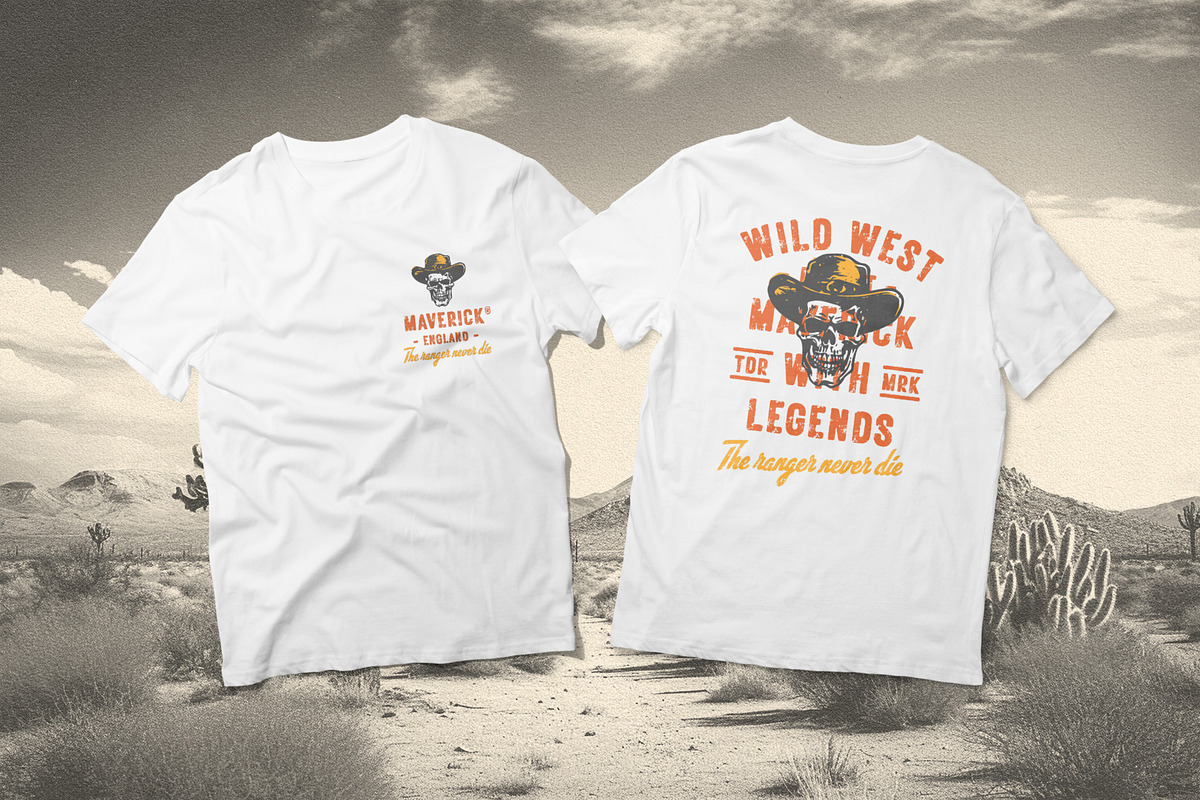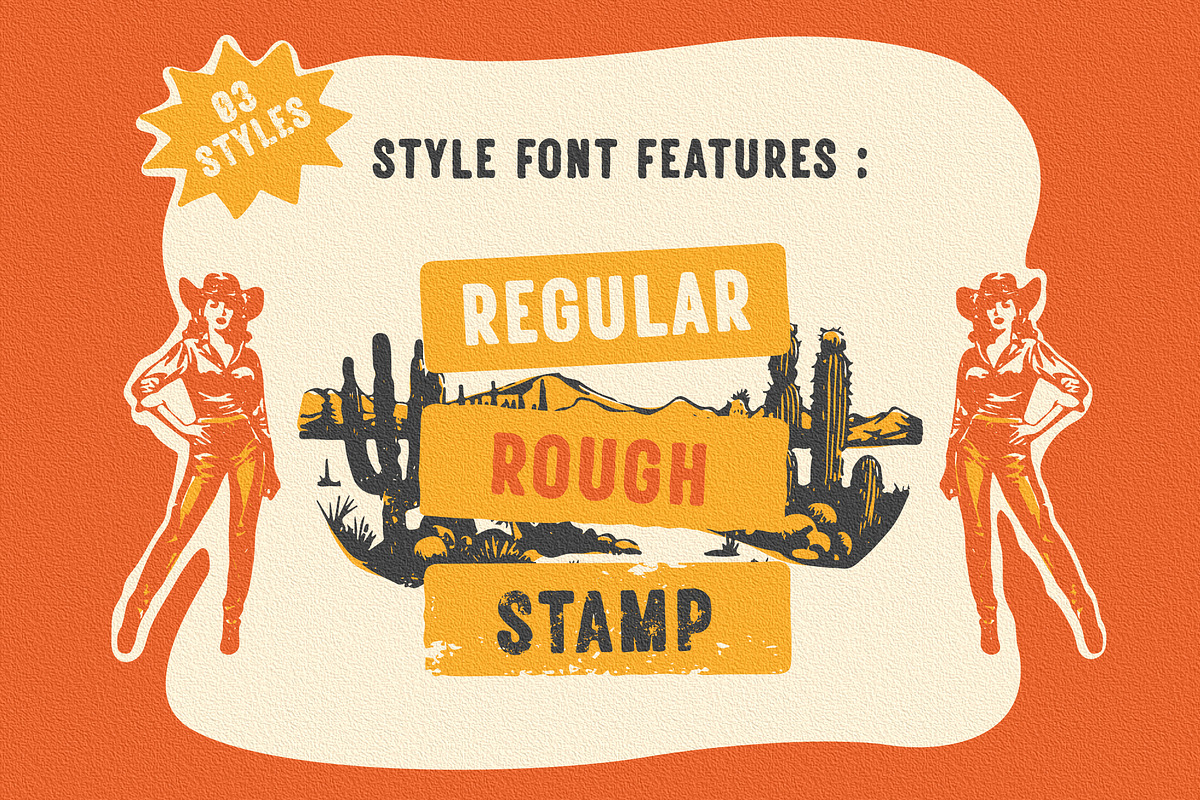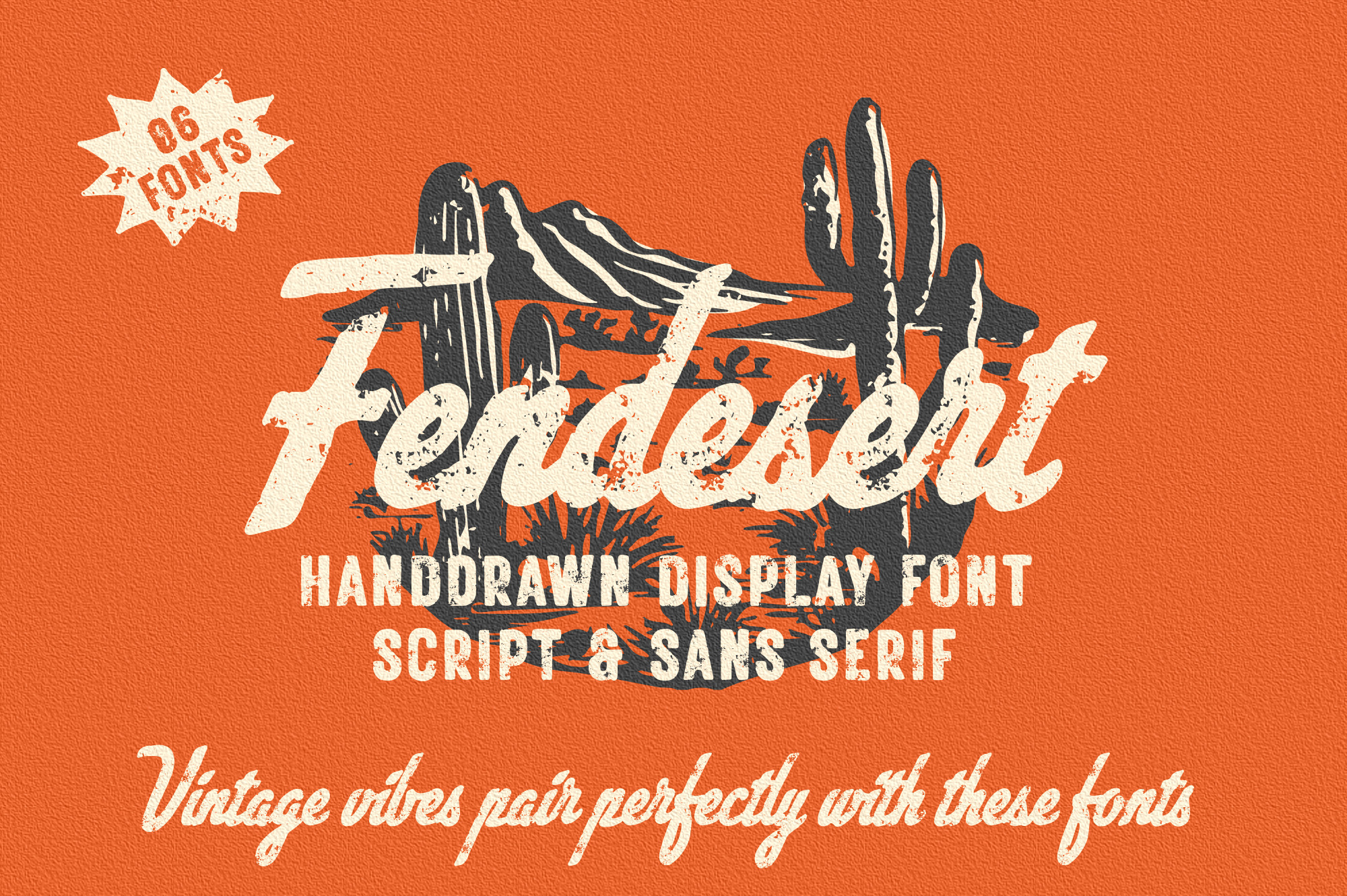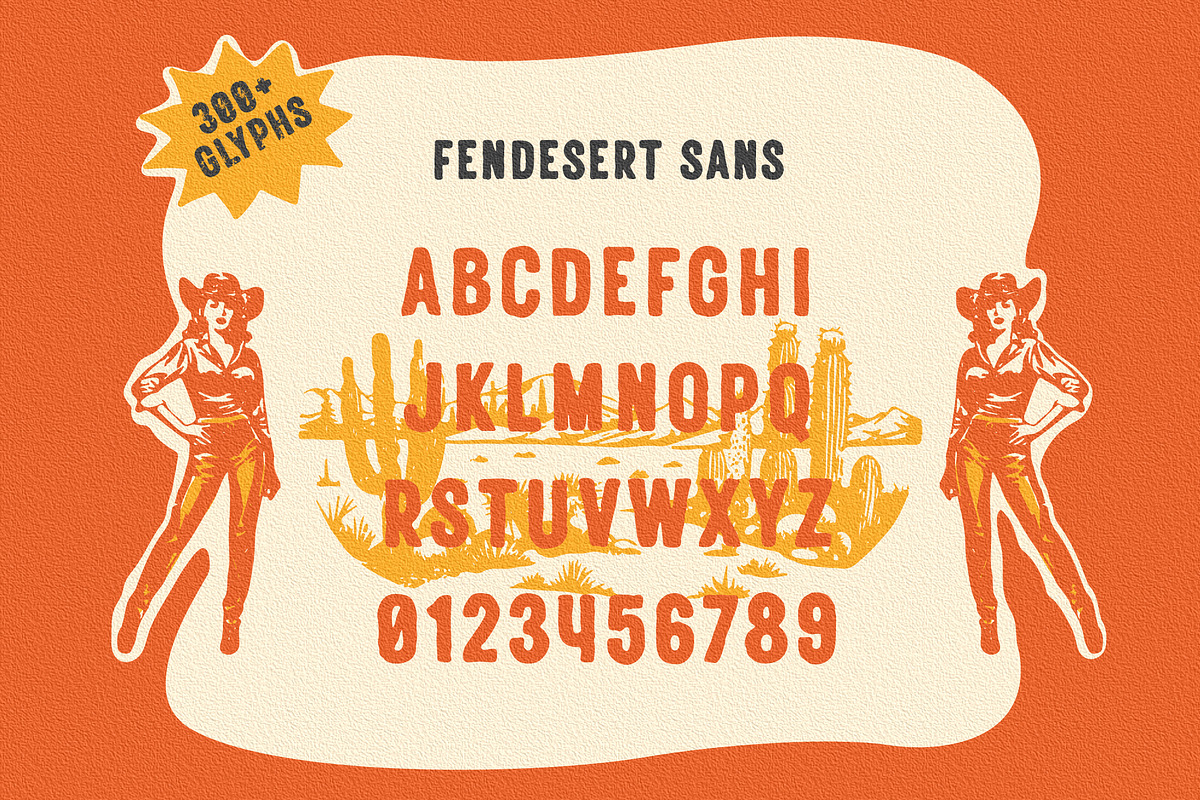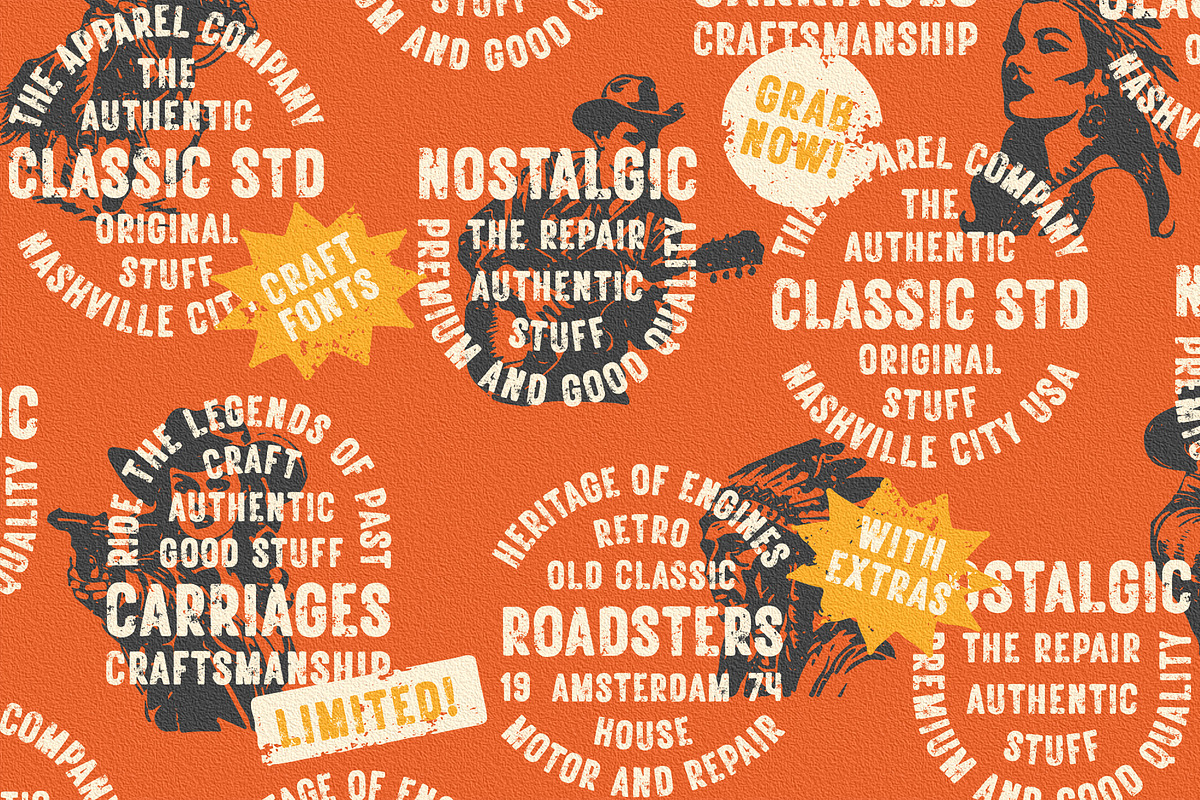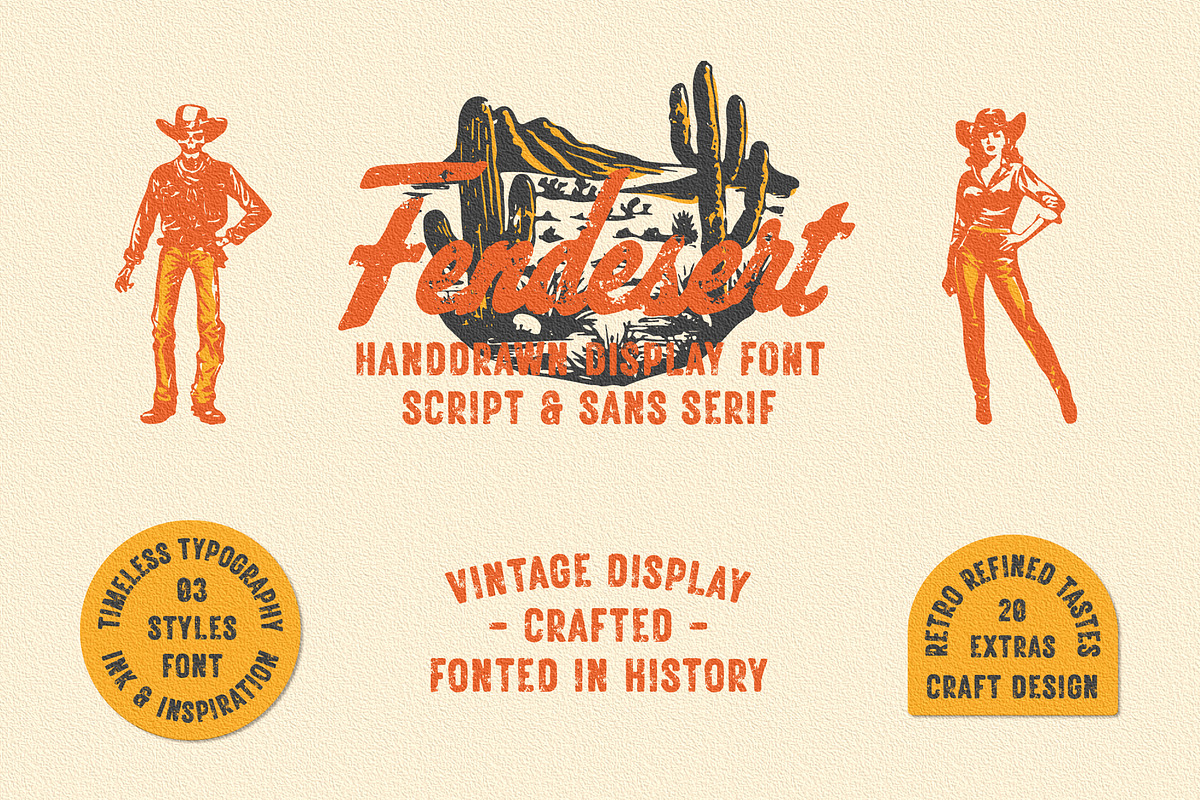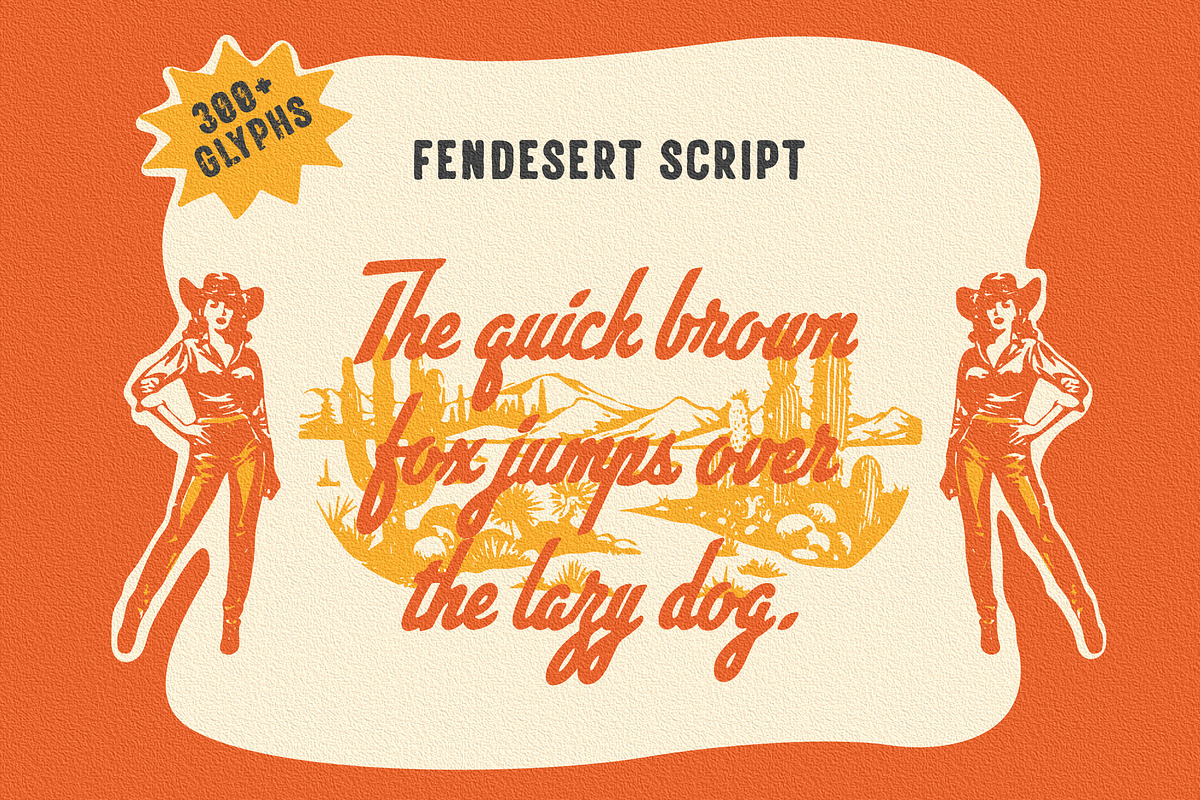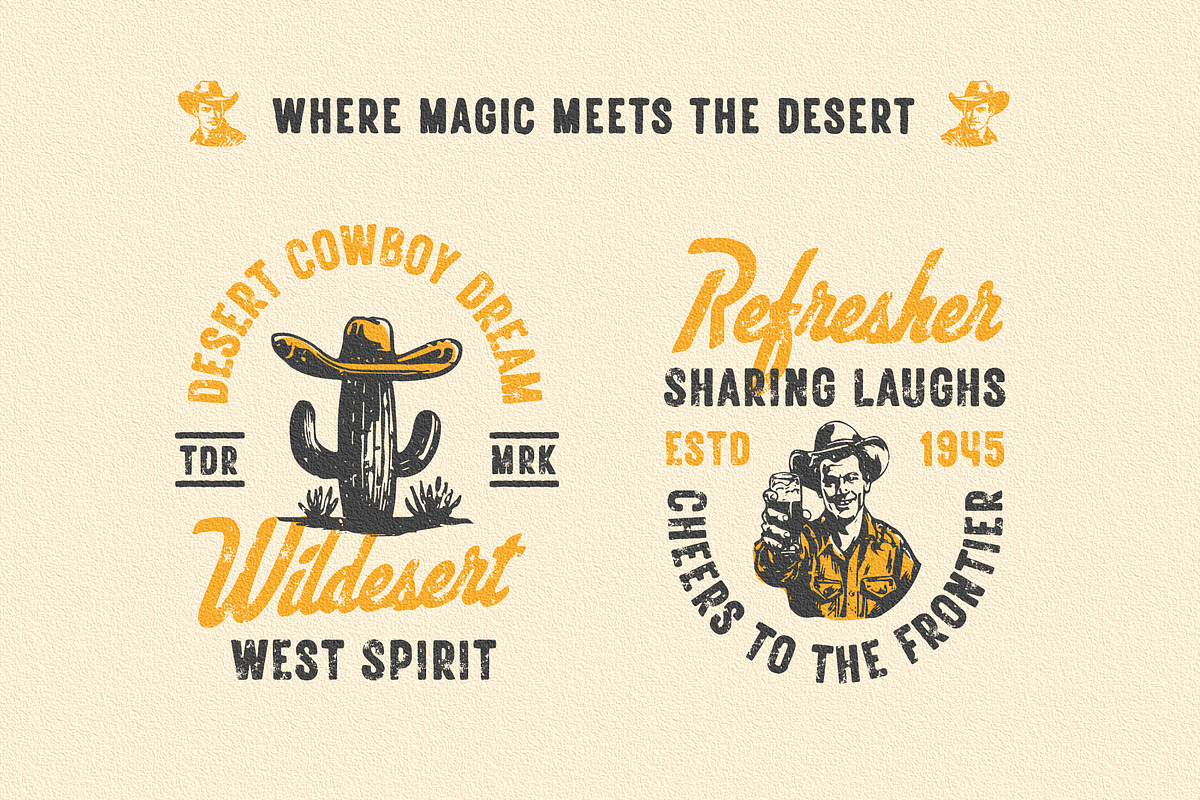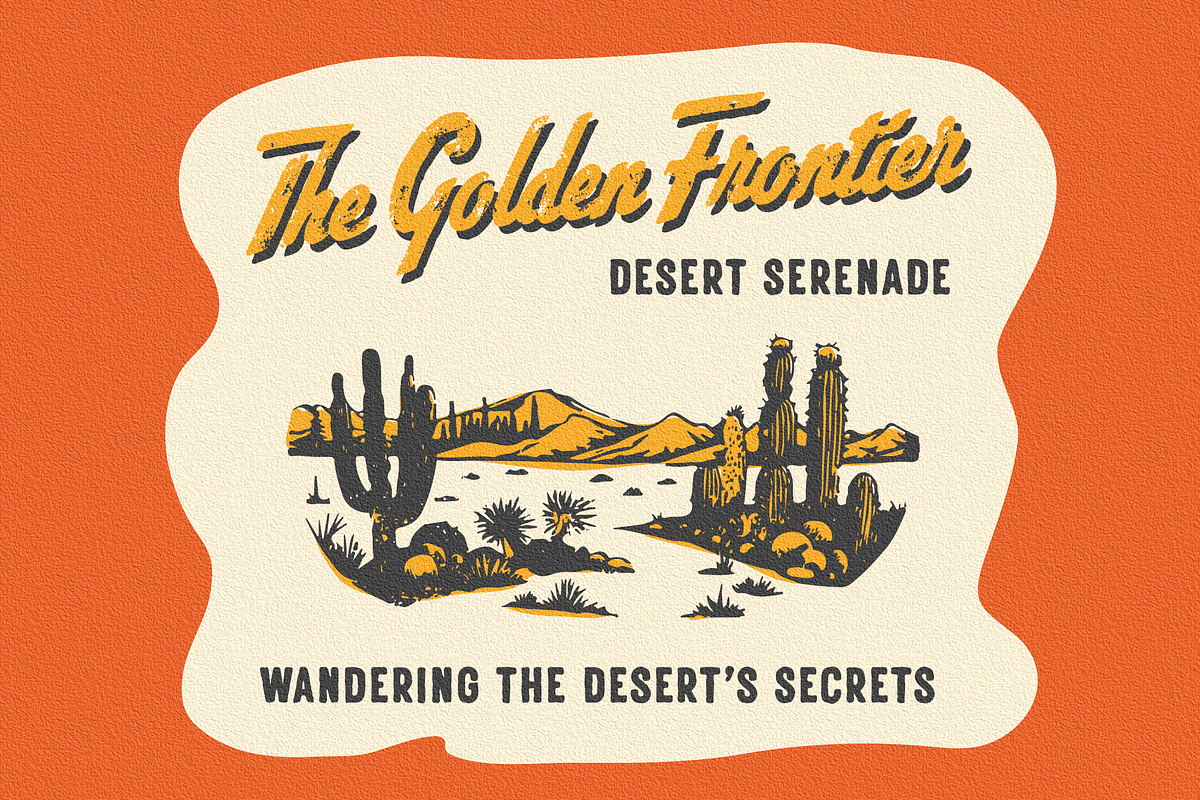
Fendesert - Vintage Stamp Font
Elevate your designs with Fendesert – the ultimate vintage and stamp font duo. This collection features a pair script and san serif font in regular, rough, and stamp styles. Plus, you get 20 hand-drawn western illustrations for added creativity. Perfect for logos, branding, apparel, and more. Unlock vintage charm with Fendesert.
Fendesert font features :
- 3 style typefaces (regular, rough and stamp)
- Uppercase, lowercase, numeral, symbol, punctuation and alternate in script font
- All-caps, numeral, symbol and punctuation in sans serif font
Fendesert includes :
- 7 fonts (script, sans serif and dingbat)
- 20 hand-drawn illustrations in dingbat